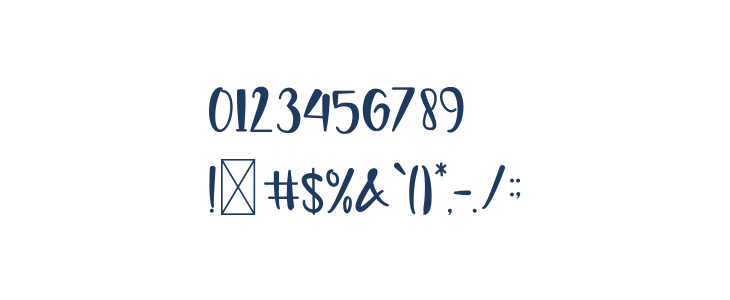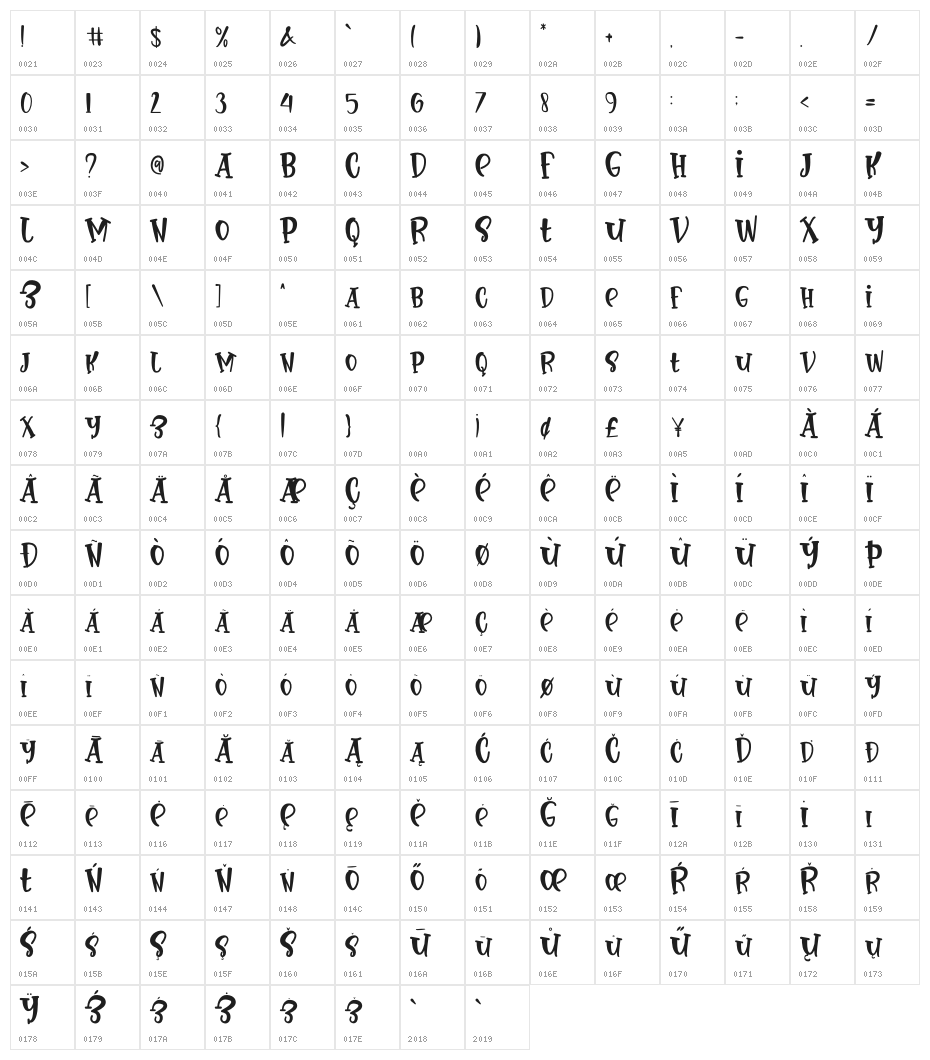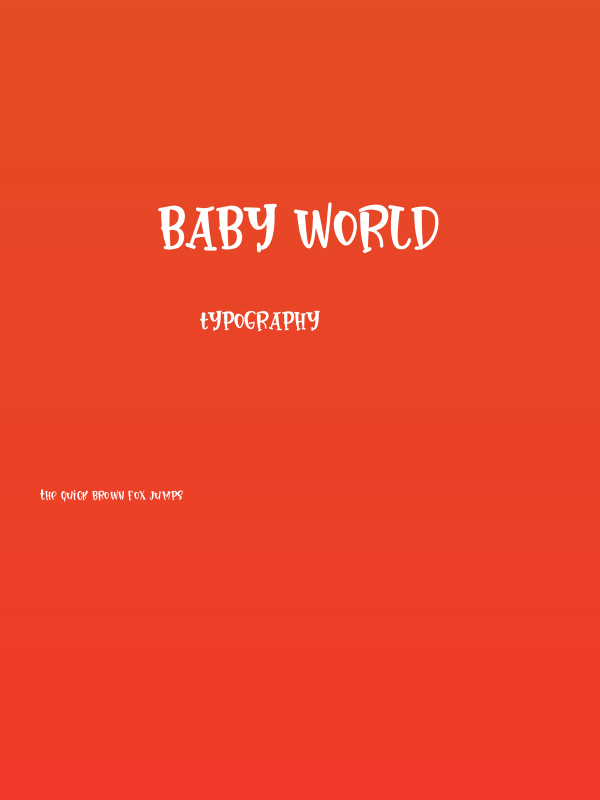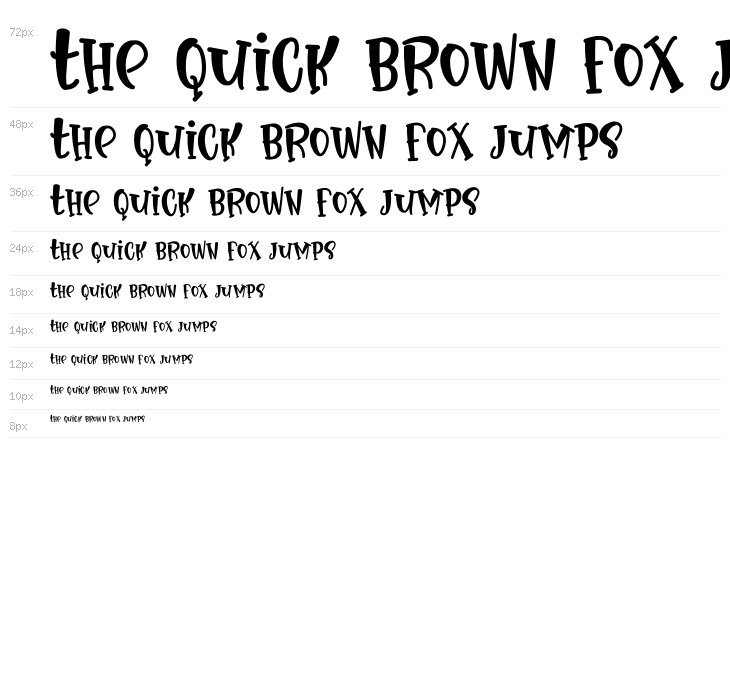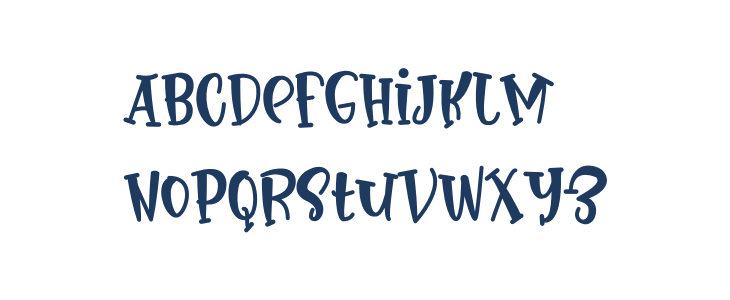
Baby World Font
| Gesamtstil | Playful, Whimsical, Creative |
| Anwendungsfall | Headlines, Logos, Creative projects |
| Vorgeschlagene Projekte | Ideal for children's books, playful branding, party invitations, and creative posters. |